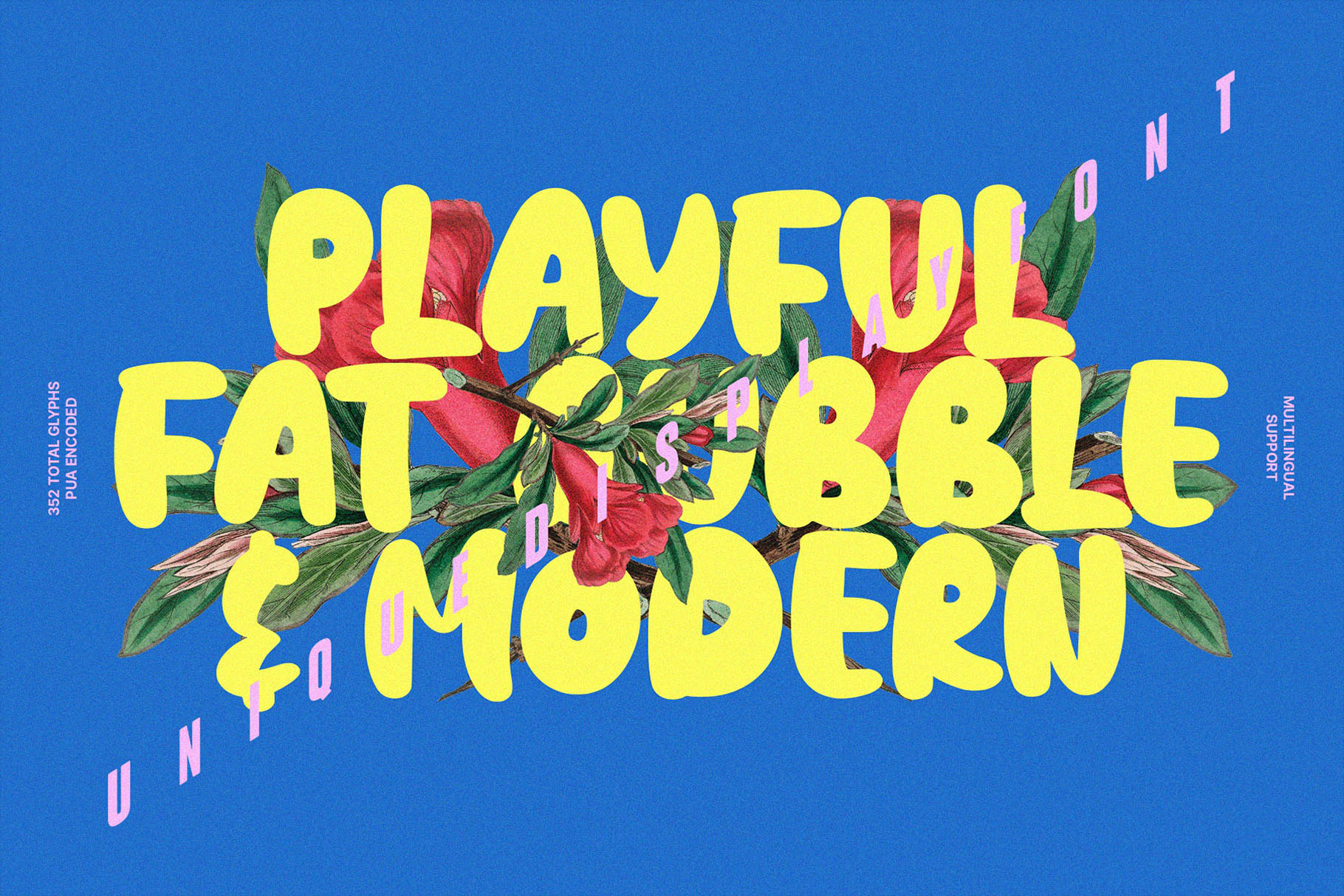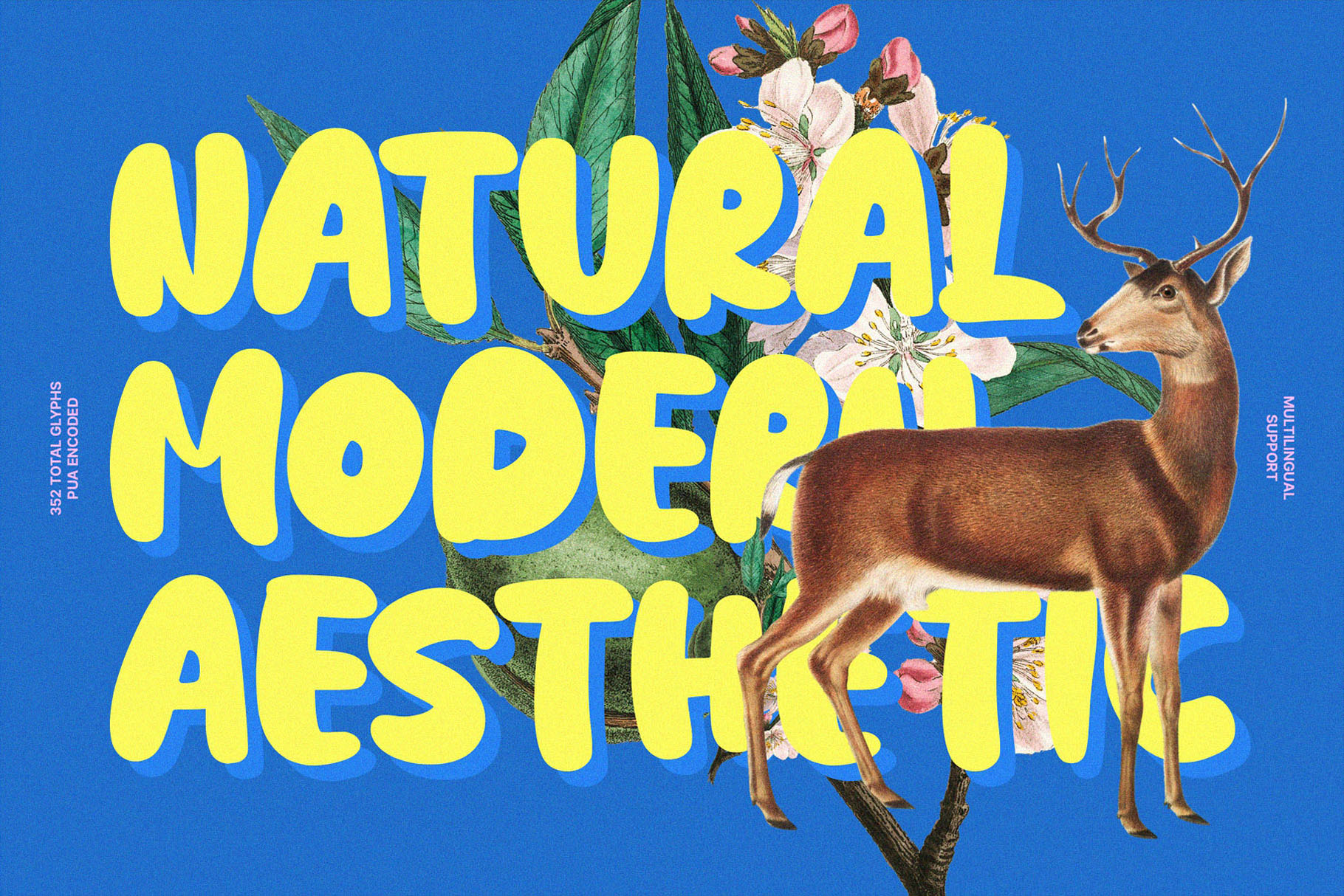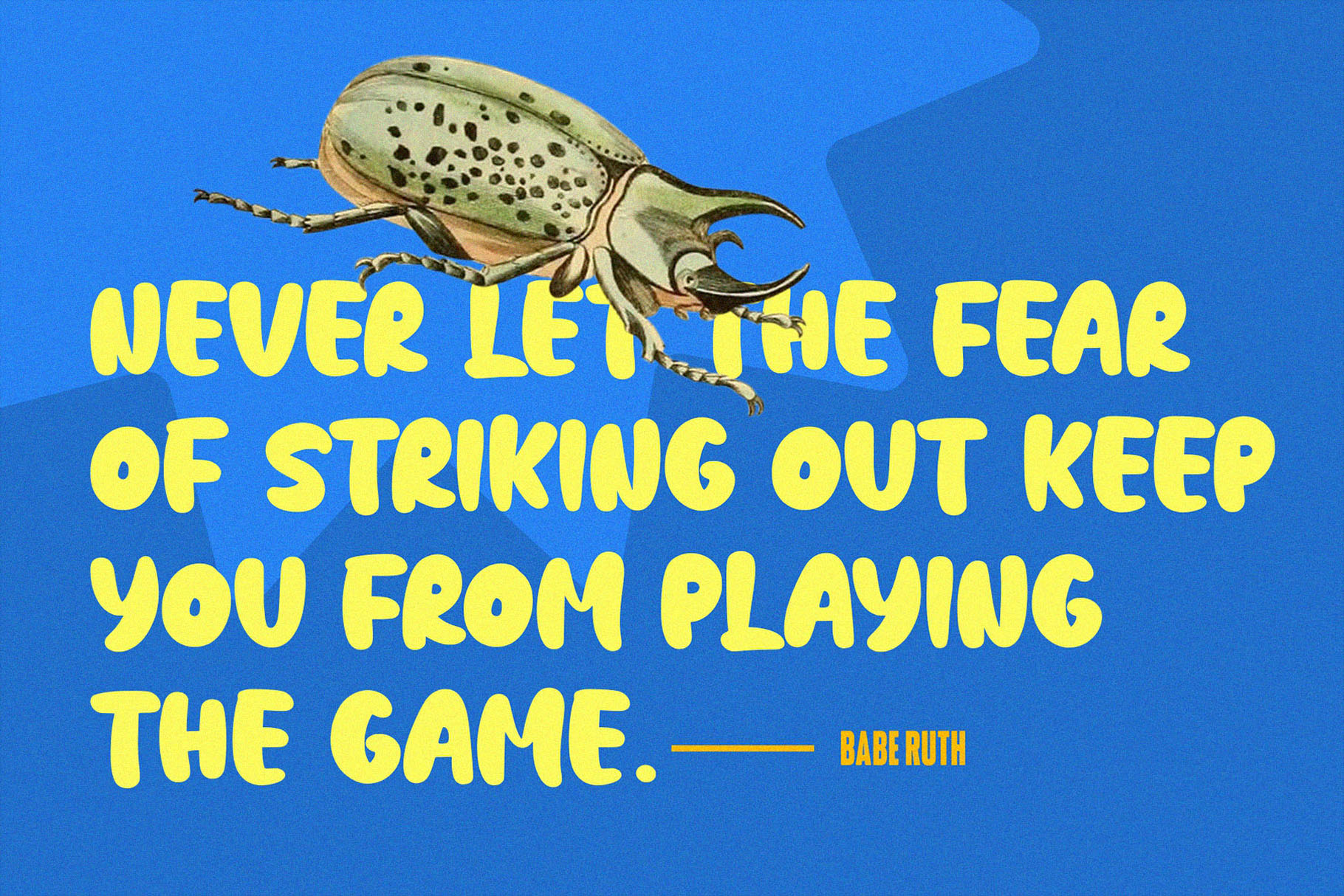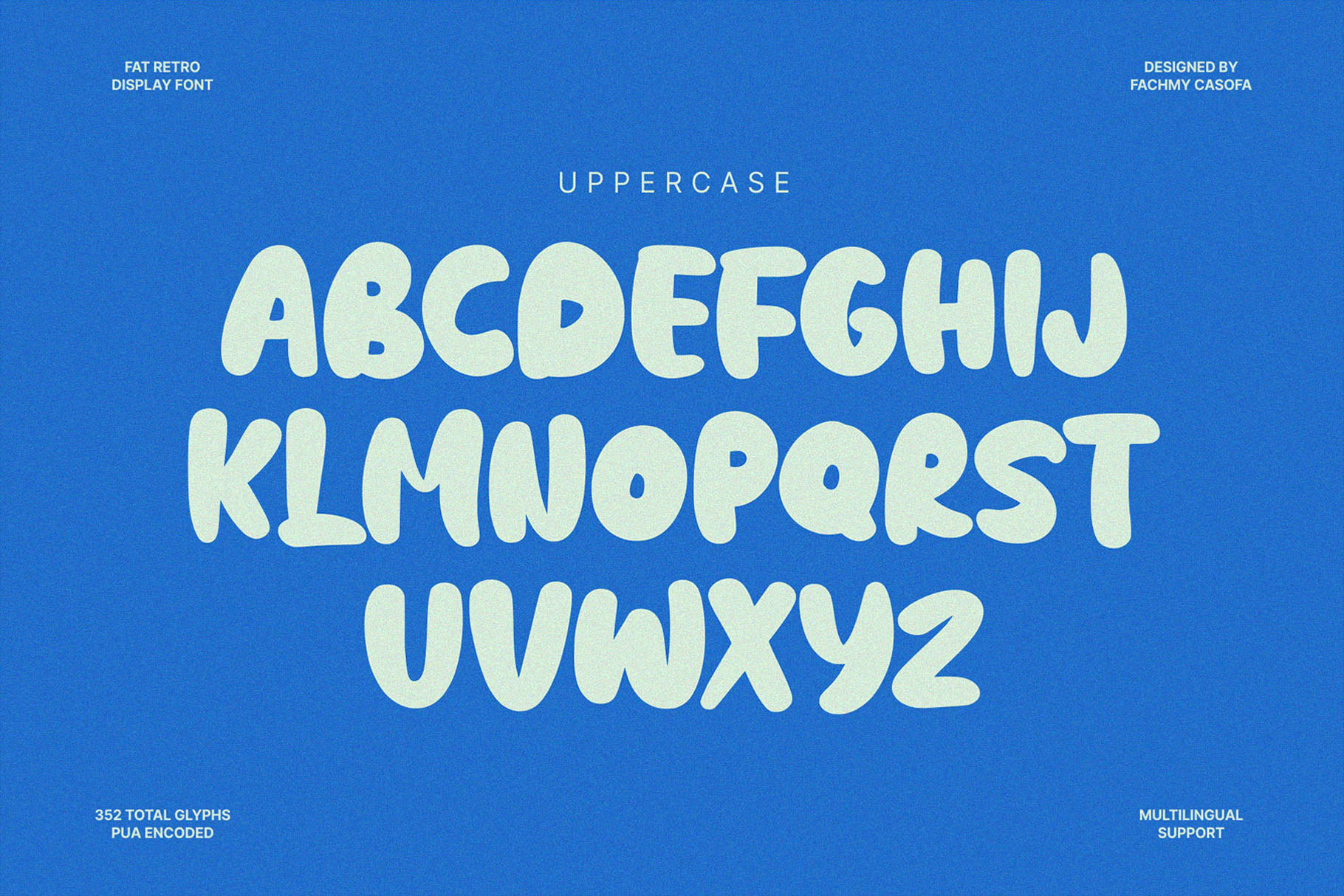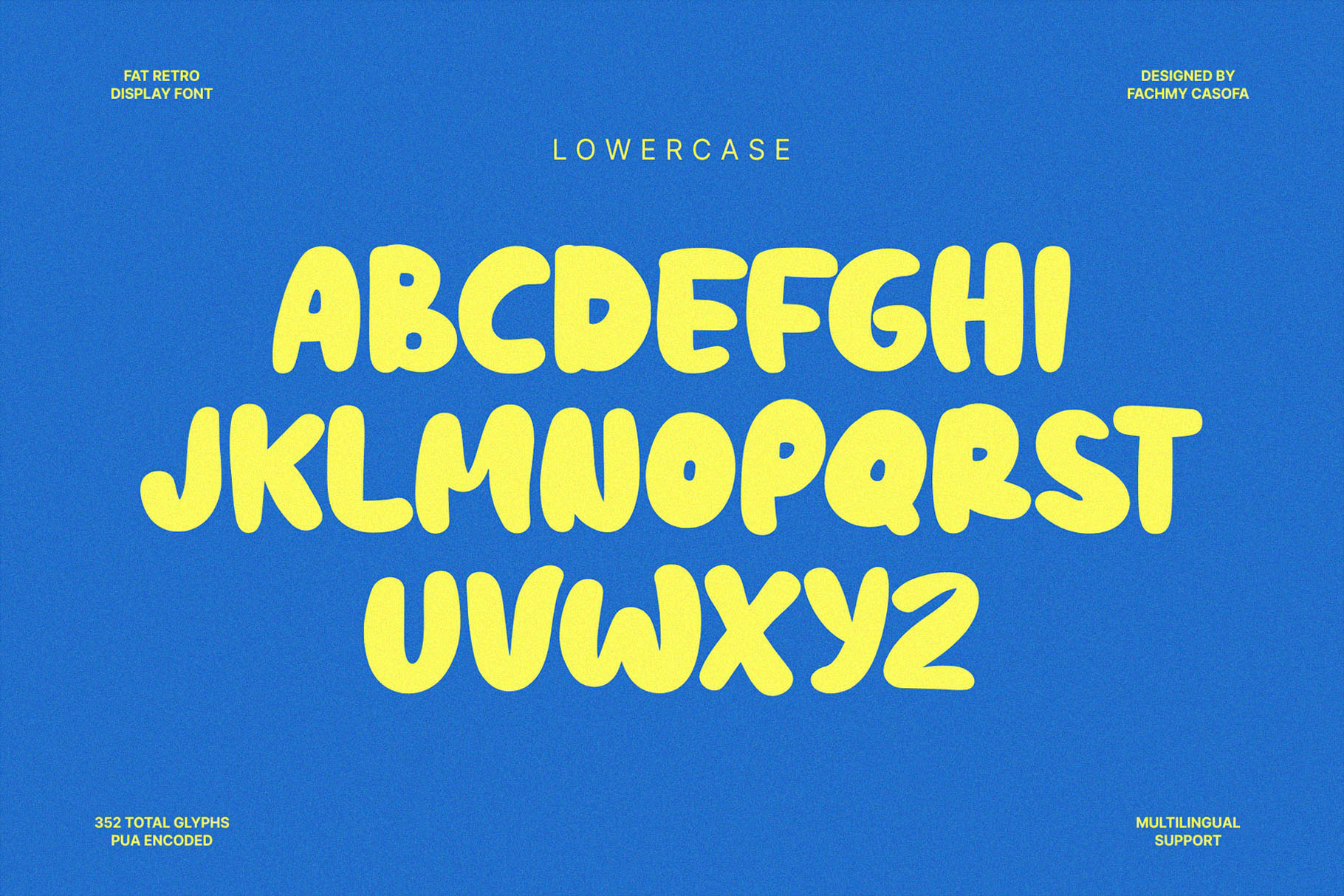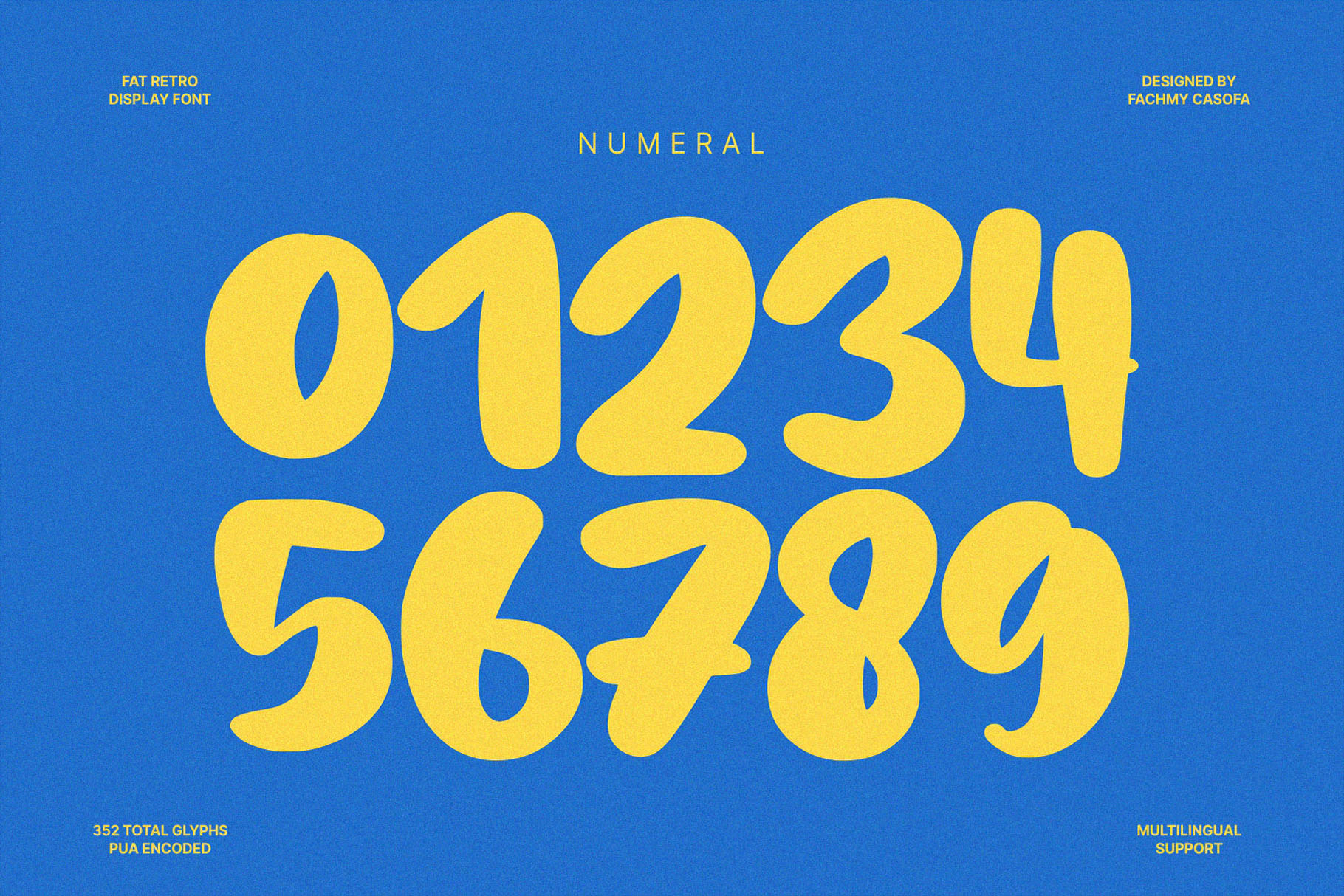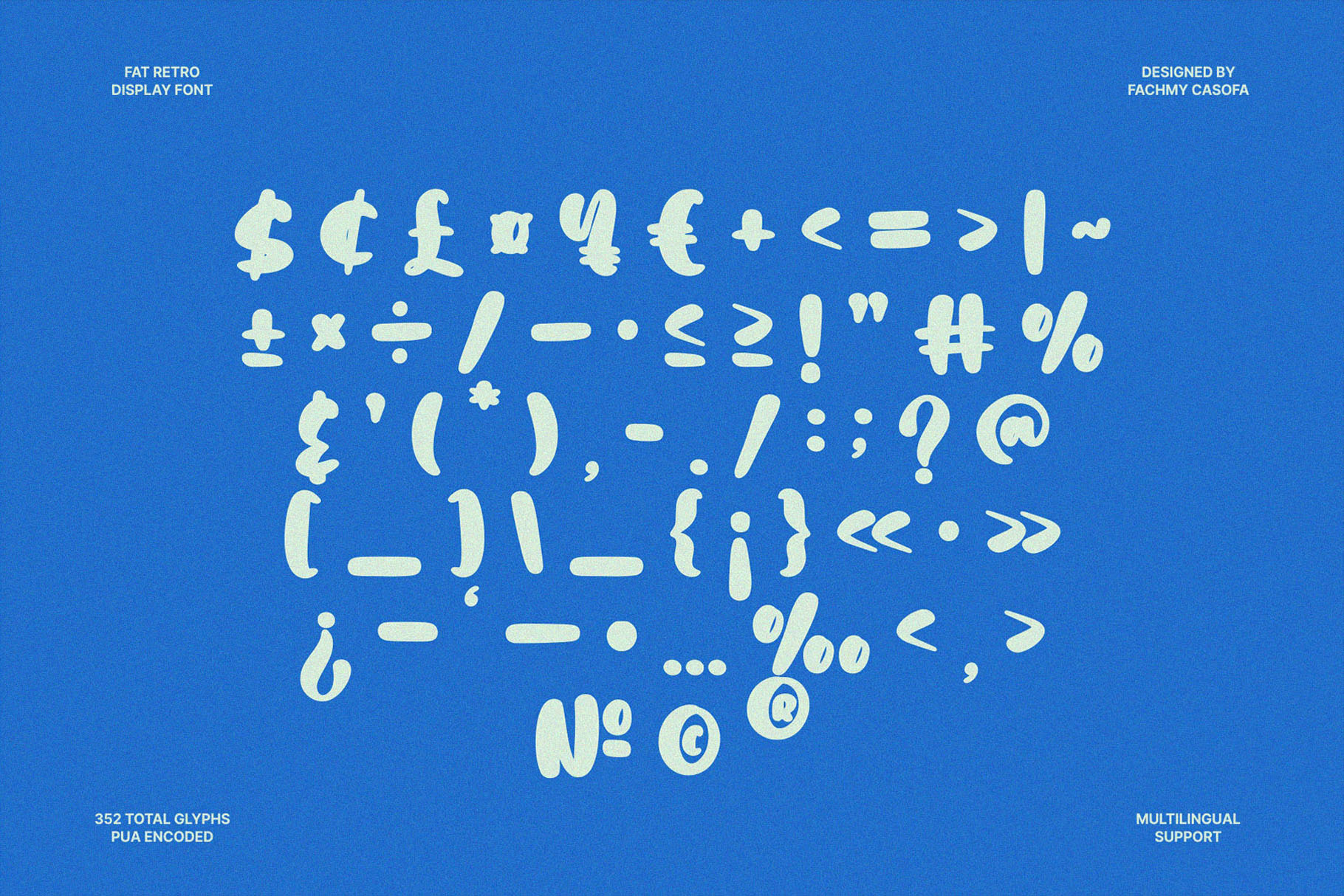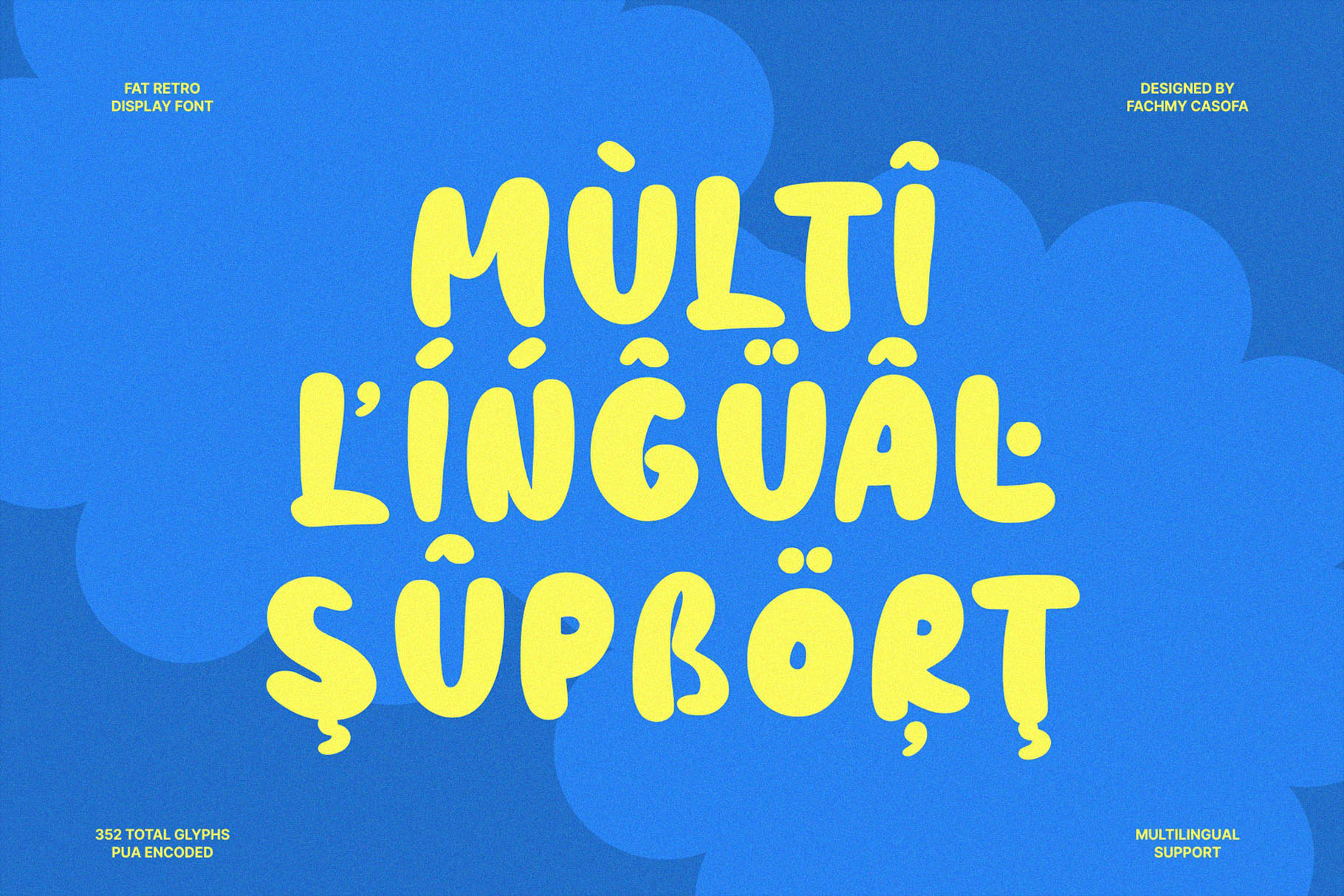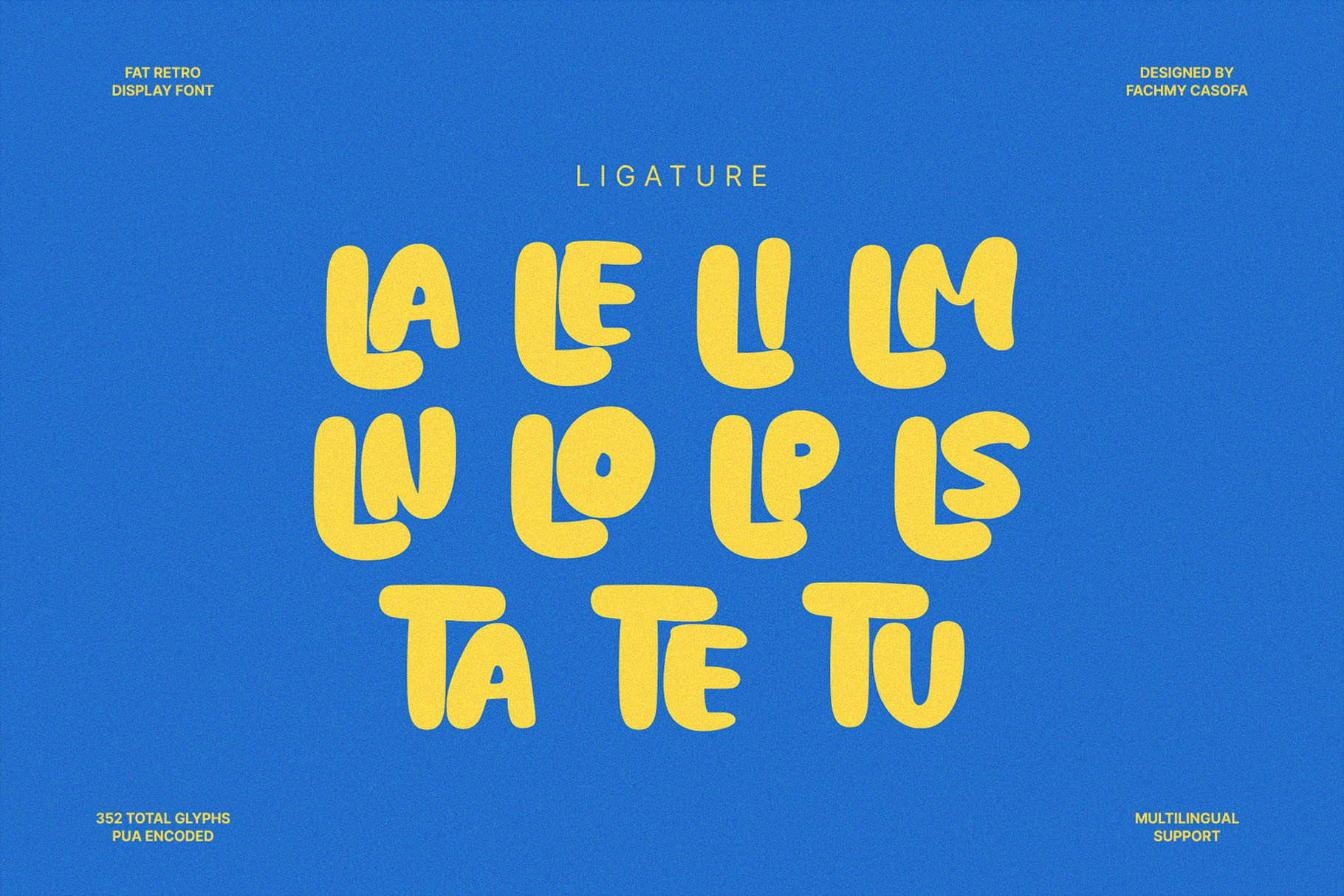
NCL Fatboy Onishuke
NCL Fatboy Onishuke – Fat Bubble Bold Brush Font
NCL Fatboy Onishuke – Fat Bubble Bold Brush Font is a bold, playful, and vibrant retro display font. Its plump and juicy design adds a dynamic and energetic touch to any creative project. This font is masterfully crafted to shine in large point sizes, while still maintaining its expressive qualities even in smaller sizes.
Whether you need it for headlines, billboards, magazines, websites, titles, posters, branding, or logos, NCL Fatboy Onishuke is the perfect choice. Add this bold and bulbous font to your collection and watch your designs come to life.
• Contains 352 Glyphs
• Uppercase & Lowercase
• Numeral, Punctuation & Symbols
• Ligature
• Multilingual Support